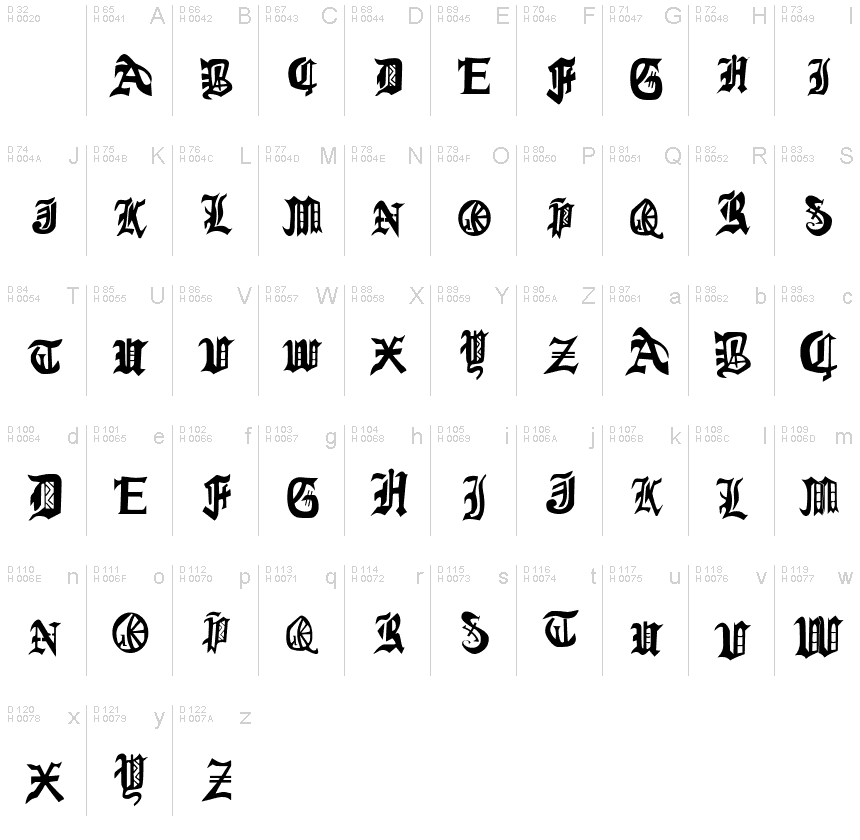
Destructive Regular
Destructive is a gothic semi-bold font created by the talented designer jaymoney. Its unique and edgy style makes it the perfect choice for any project that requires a bold, attention-grabbing font. From horror movie posters to heavy metal album covers, Destructive is ideal for projects that demand a touch of darkness and drama. Its strong lines and sharp angles give it an unmistakable presence, making it perfect for logos, branding, and headlines that need to stand out from the crowd. Whether you're designing a tattoo or creating flyers for your band's next show, Destructive is sure to make an impact.